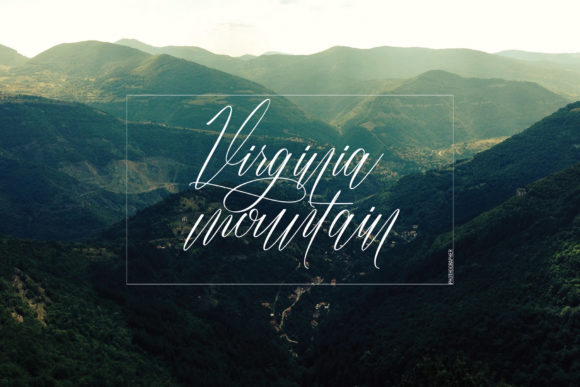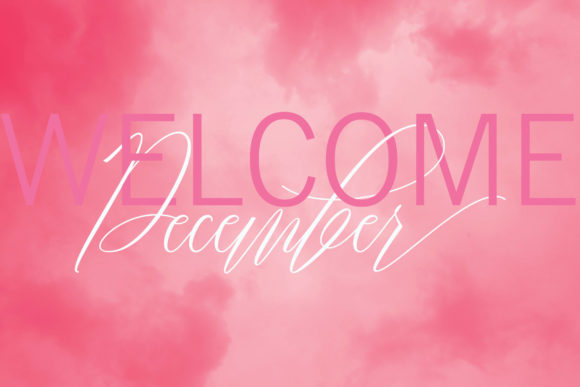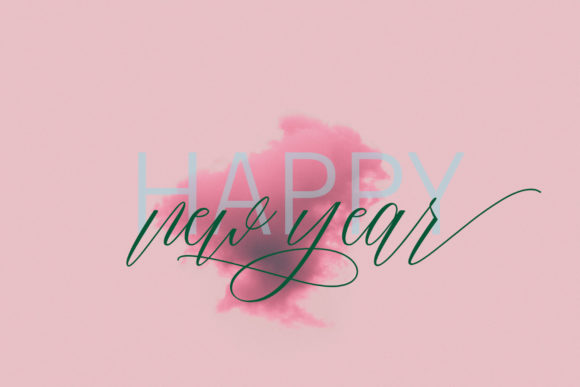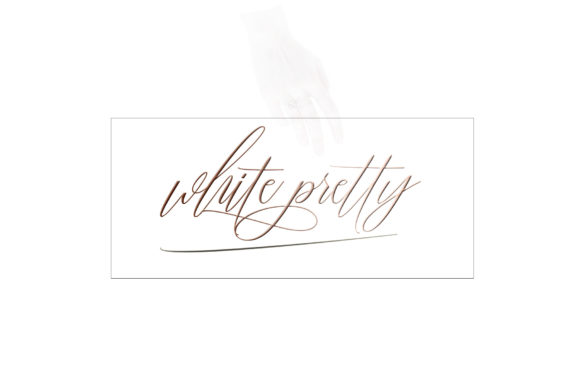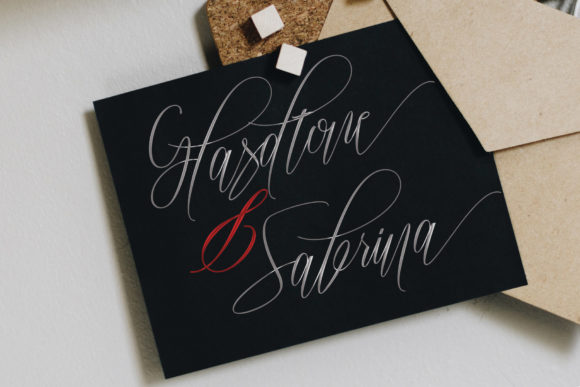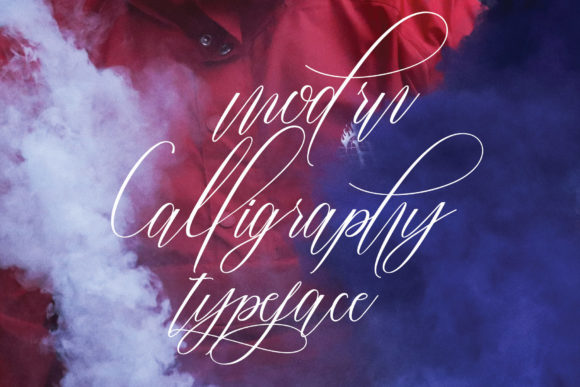
Monster Script Font
About Monster Script Font
The Sully is an elegant calligraphy font. It has natural characteristics and is perfect for invitations, signatures, blogs, social media, business cards, and much more!